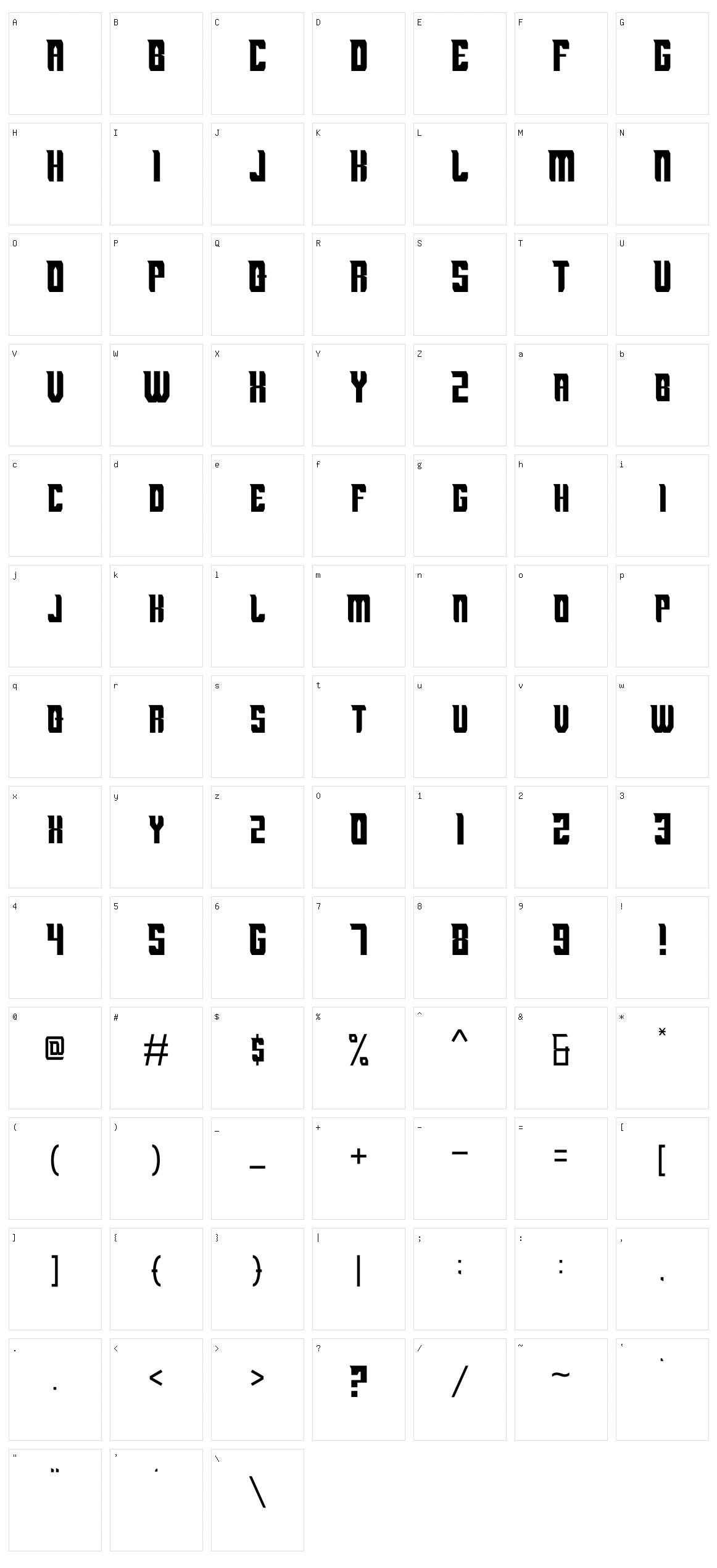
Muntela is a sans serif font created for your needs. Gealliea is perfect for logos for branding, typographic designs, badge designs, product packaging, invitations, offers, t-shirt designs, label posters, special events, and whatever you want to need.